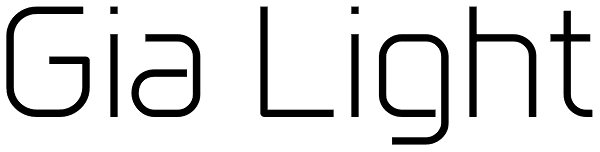
Gia
Gia is based on forms from the retired NASA “worm” logo, the recently re-issued Atari logo, and elements from crude typefaces of the early eighties which appeared in upright video games. The family is named in honor of supermodel Gia Carangi, hugely...